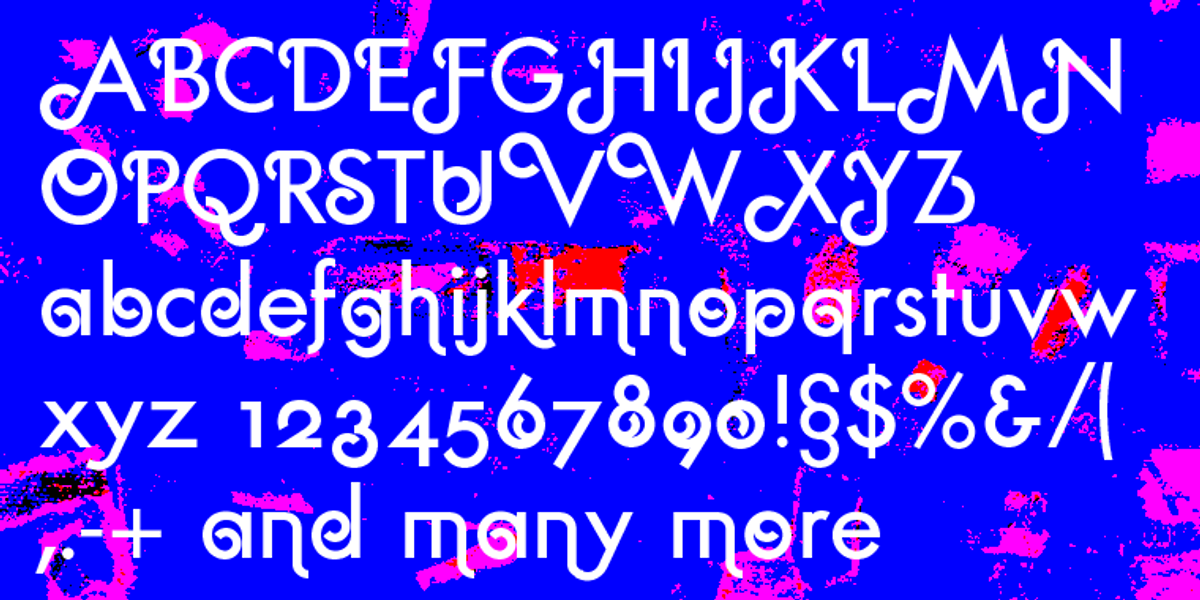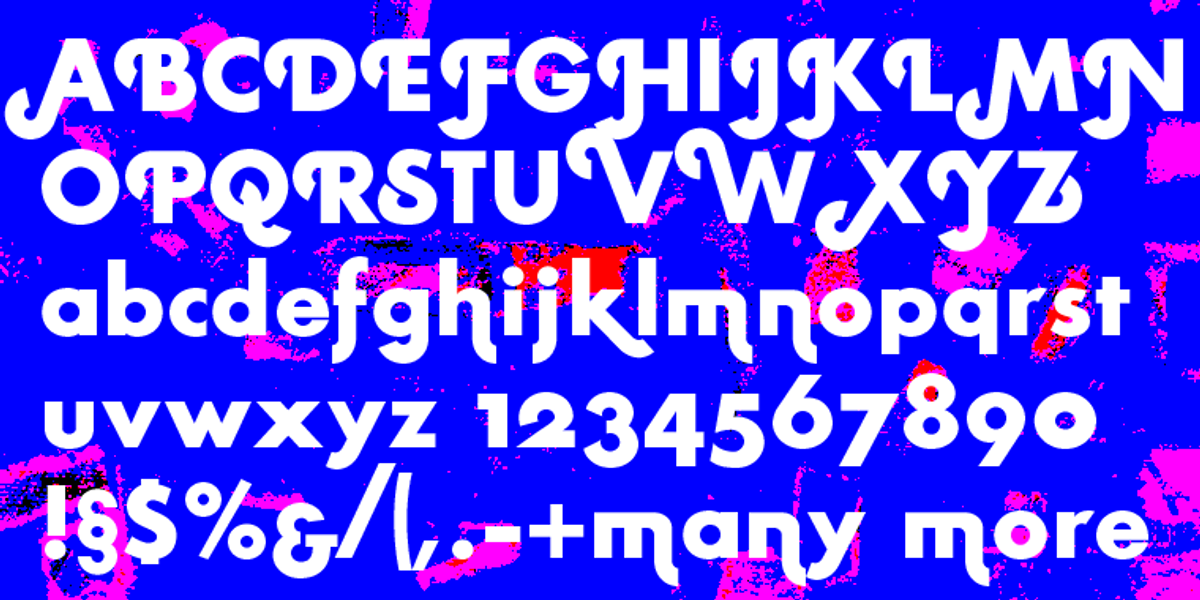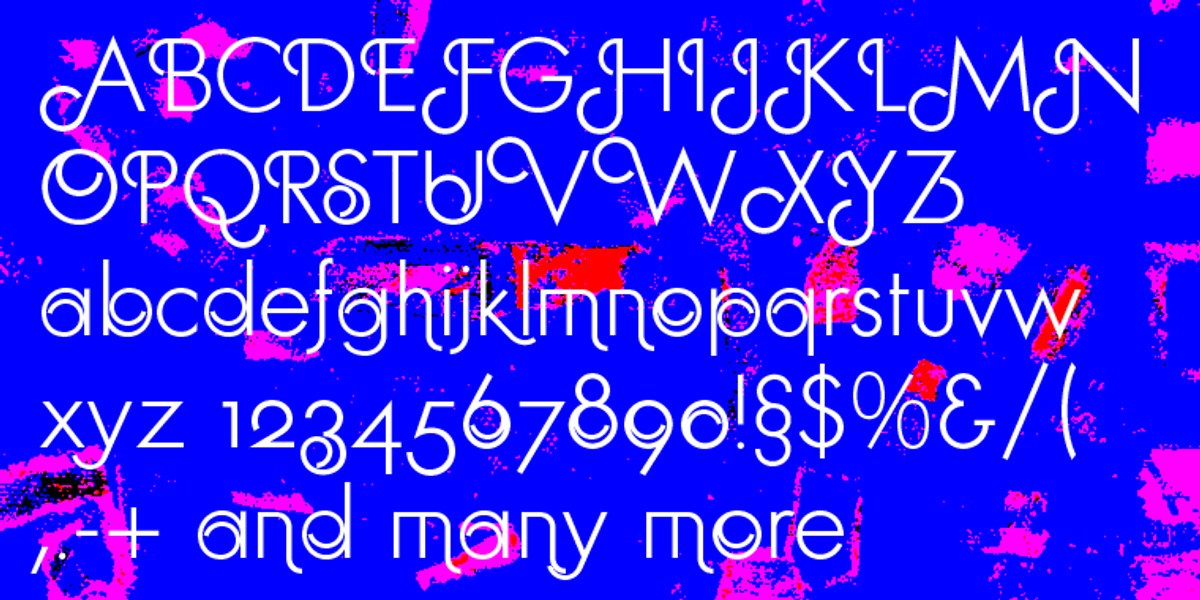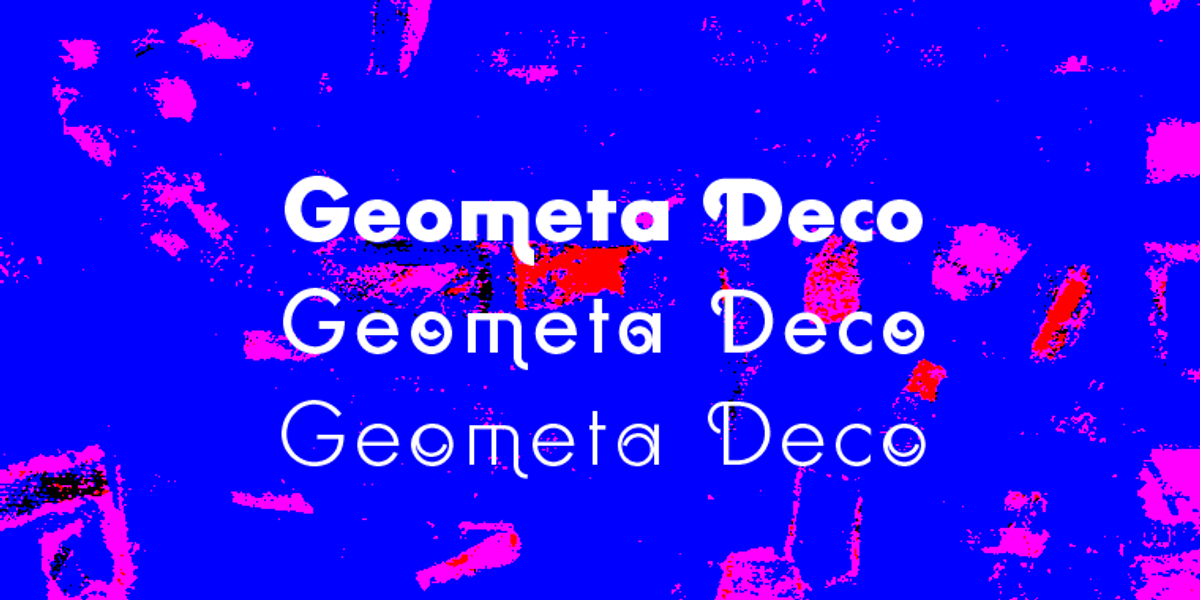
Geomet Deco
This typeface draws inspiration from Futura Classic, a renowned geometric sans-serif font. It retains the core characteristics of Futura's clean lines and geometric shapes but introduces decorative elements, including swashes on capital letters and ornate details. The result is a stylish display font suitable for headlines, branding materials, and other design applications where a touch of elegance and art deco flair is desired.